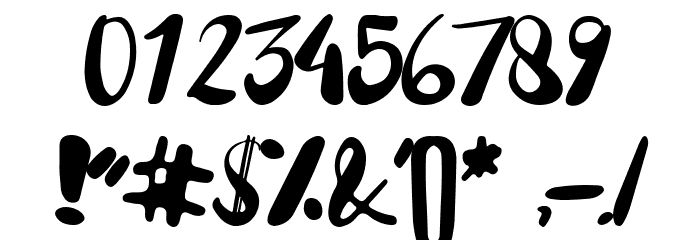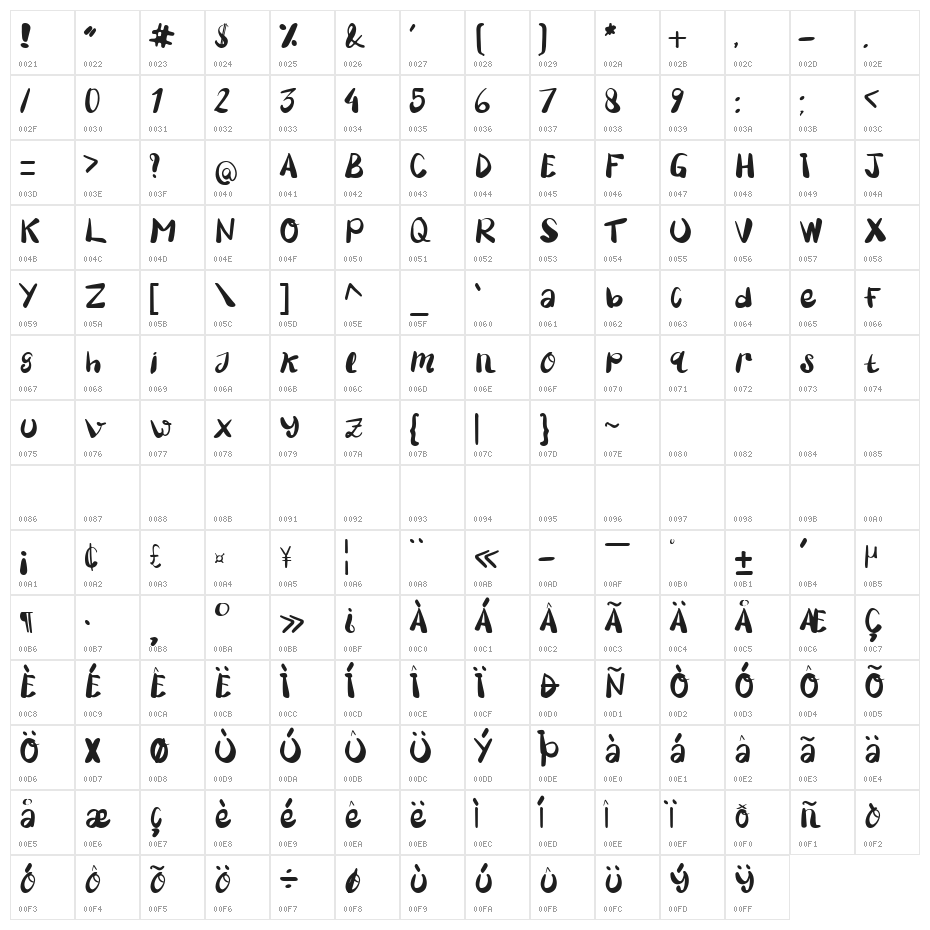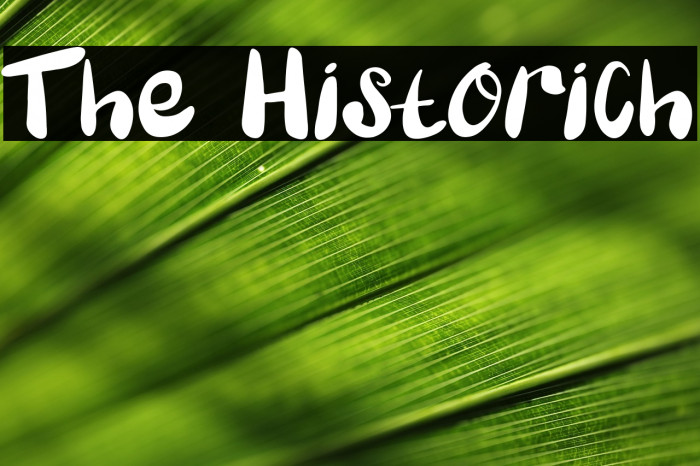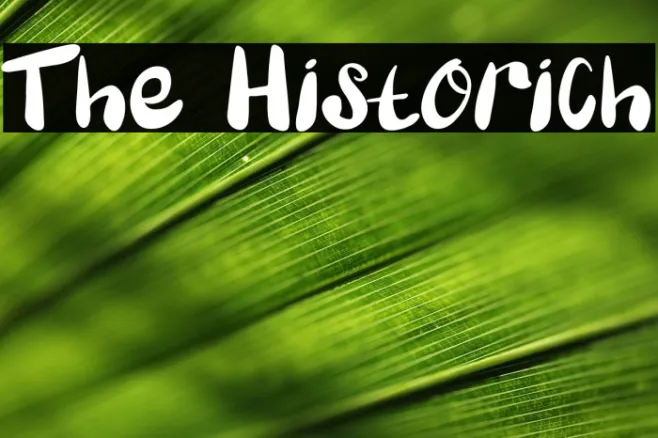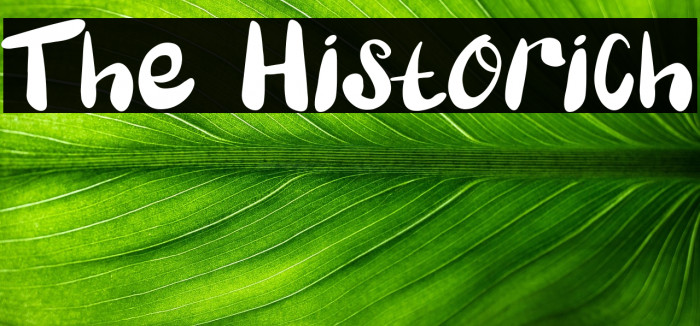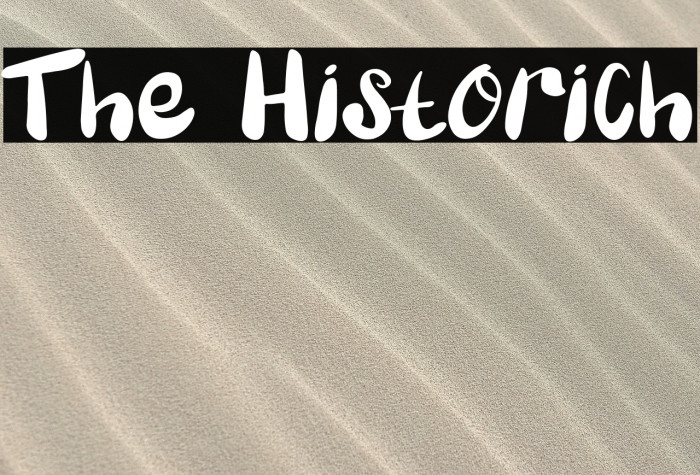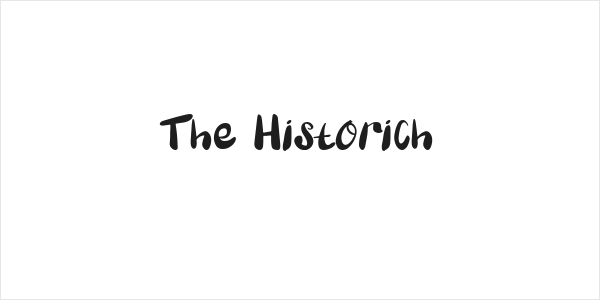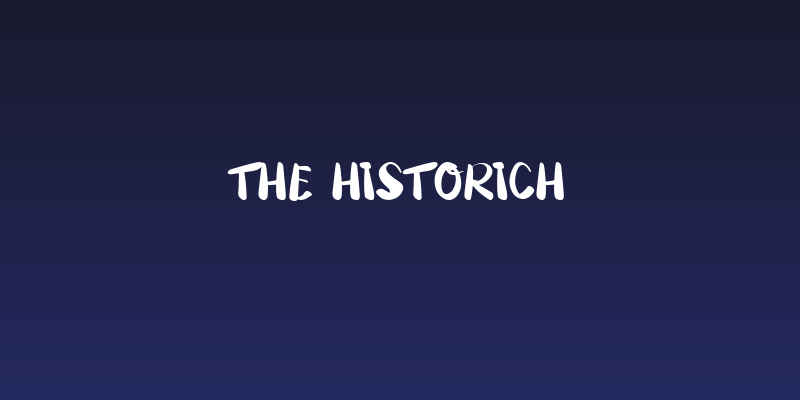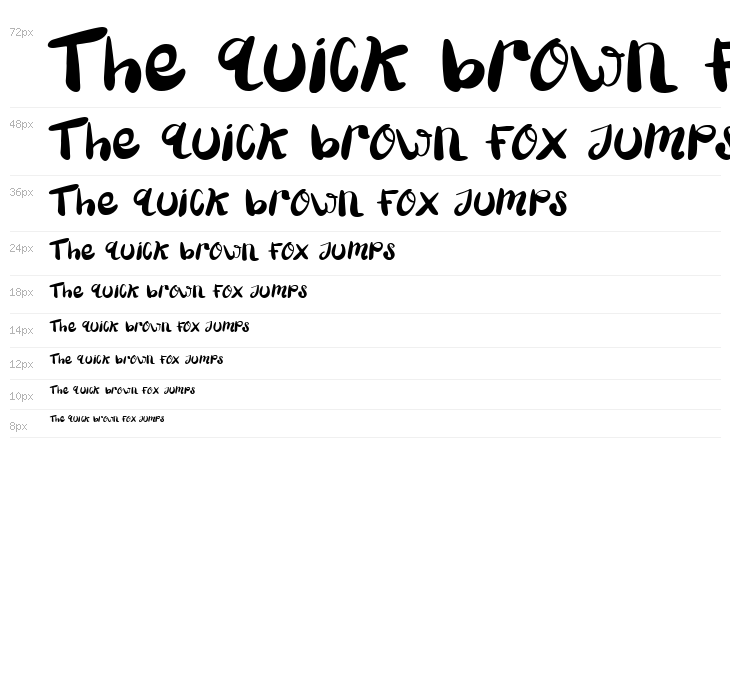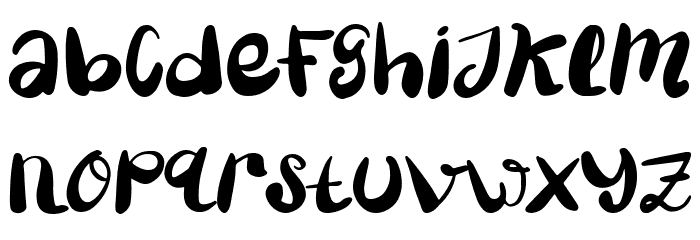
The Historich Font
The Historich Description
This font exhibits a playful and dynamic style with a handwritten appearance. The characters are bold and slightly irregular, giving them a lively and informal feel. The uppercase letters are robust and slightly tilted, while the lowercase letters maintain a consistent flow with a touch of whimsy. Numbers and special characters follow the same energetic style, making them stand out. The overall impression is one of creativity and spontaneity, suitable for projects that require a personal touch or a sense of fun.
Proposed ProjectsIdeal for greeting cards, children's books, playful branding, and creative posters.